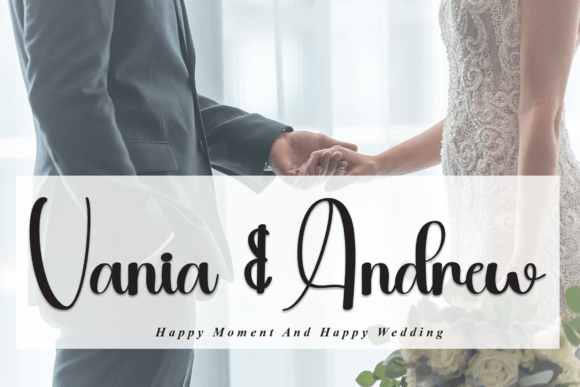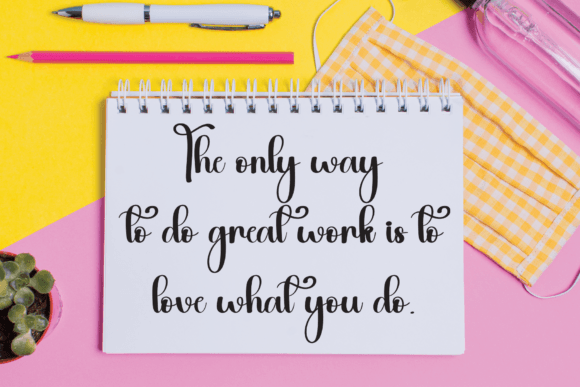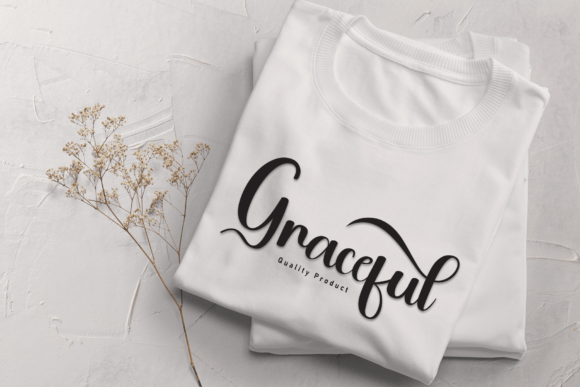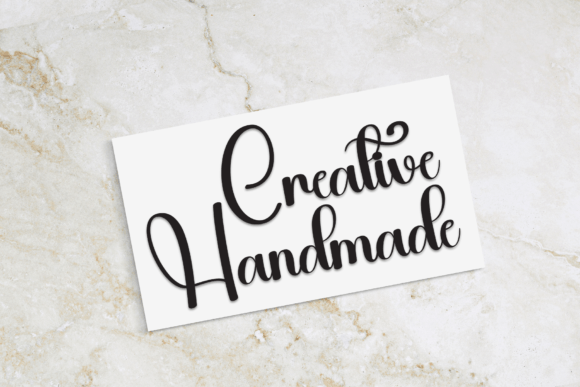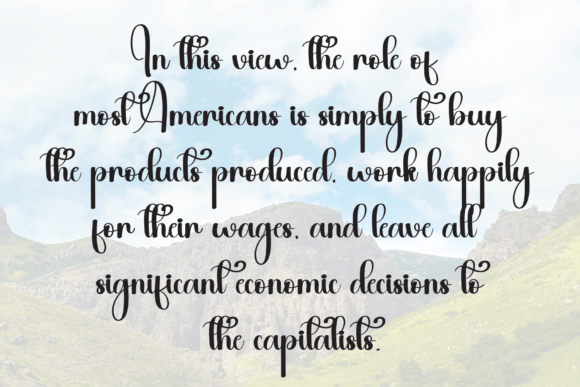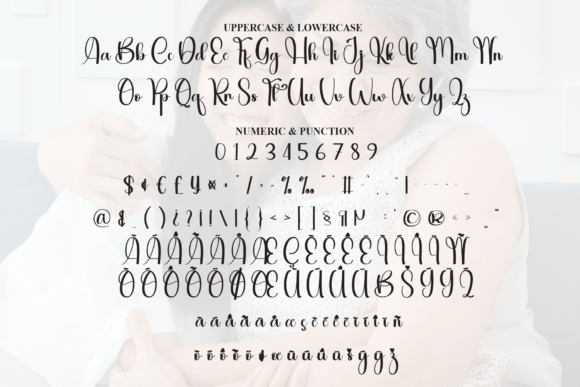
Introducing Grandma Font: The Elegant Handwritten Script Font for Your Design Needs
Are you looking for a font that adds a touch of elegance and charm to your designs? Look no further than Grandma Font, a stylish handwritten script font that is perfect for creating beautiful and sophisticated designs. With its flowing, graceful curves, Grandma Font is ideal for invitations, logos, branding, and any other project that requires a personal and refined touch.
The Characteristics of Grandma Font
Grandma Font is a unique and eye-catching font that boasts a range of characteristics that make it perfect for designers and crafters. Some of its key features include:
- Flowing, graceful curves: Grandma Font features beautiful, flowing curves that give it a sense of elegance and sophistication.
- Delicate strokes: The font’s delicate strokes bring warmth and creativity to your projects, making it perfect for designs that require a personal touch.
- Handwritten script: Grandma Font is a handwritten script font, which gives it a unique and personal feel that’s perfect for invitations, letters, and other designs.
Uses for Grandma Font
Grandma Font is a versatile font that can be used for a wide range of design projects. Some of the most popular uses for the font include:
- Invitations: Grandma Font is perfect for creating beautiful and elegant invitations for weddings, parties, and other special occasions.
- Logos and branding: The font’s sophisticated and refined look makes it ideal for logos and branding projects that require a touch of elegance.
- Stationery: Grandma Font is perfect for creating beautiful stationery, including letterheads, notecards, and journals.
- Digital designs: The font can also be used for digital designs, including social media graphics, blog posts, and website headers.
Why Choose Grandma Font?
There are many reasons why designers and crafters choose Grandma Font for their projects. Some of the benefits of using the font include:
- Elegance and sophistication: Grandma Font adds a touch of elegance and sophistication to any design, making it perfect for projects that require a refined look.
- Personal touch: The font’s handwritten script and delicate strokes give it a personal touch that’s perfect for designs that require a human feel.
- Versatility: Grandma Font can be used for a wide range of design projects, from invitations and logos to stationery and digital designs.
- Easy to read: Despite its elegant and refined look, Grandma Font is easy to read, making it perfect for designs that require a clear and legible font.
Tips for Using Grandma Font
To get the most out of Grandma Font, here are a few tips to keep in mind:
- Use it sparingly: Grandma Font is a elegant and refined font, so it’s best to use it sparingly to avoid overwhelming your design.
- Pair it with a sans-serif font: Pairing Grandma Font with a sans-serif font can create a beautiful contrast that adds visual interest to your design.
- Experiment with colors: Grandma Font looks beautiful in a range of colors, so don’t be afraid to experiment and find the perfect color for your design.
Grandma Font is a beautiful and elegant handwritten script font that’s perfect for designers and crafters who want to add a touch of sophistication and charm to their designs. With its flowing, graceful curves and delicate strokes, Grandma Font is ideal for invitations, logos, branding, and any other project that requires a personal and refined touch. Whether you’re creating digital designs or print materials, Grandma Font is a versatile font that can help you achieve your design goals.
So why not give Grandma Font a try? With its unique characteristics, versatility, and elegance, it’s the perfect font for any designer or crafter looking to add a touch of sophistication to their designs.